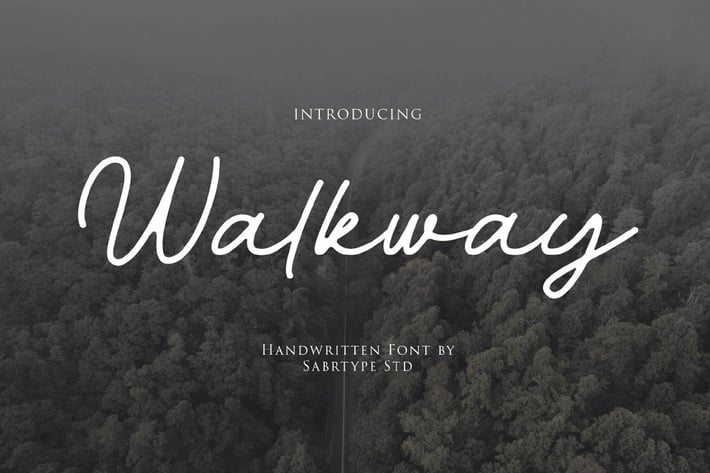
Walkway Font
Walkway is a stunning handwritten signature font with a casual, natural flow. This is the perfect font for use in a wide range of projects that need a relaxed, open look. this download also includes added files so you can easily create beautiful designs.
Foreign languages support:
ÀÁÂÃÄÅÆÇÈÉÊËÌÍÎÏÐÑÒÓÔÕÖØÙÚÛÜÝßàáâãäåæçèéêëìíîïðñòóôõöøùúûüýÿ
FEATURES:
- Number
- Multilingual
- PUA Encode
- Opentype